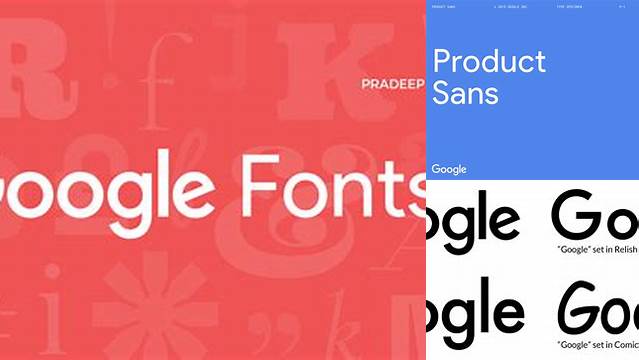
Google Product Sans Font: Free Downloads & Alternatives
Google's Product Sans has become a ubiquitous typeface, known for its clean lines, geometric structure, and modern appeal. This font family is the cornerstone of Google's branding, gracing everything from the Google logo to the interfaces of its various products. Its versatility makes it a popular choice for designers and businesses aiming for a contemporary and approachable look. But getting your hands on Google Product Sans font for free can be a bit tricky, so let's dive into everything you need to know about this iconic font, where to find it, and how to use it.
What is Google Product Sans Font?
Product Sans is a geometric sans-serif typeface commissioned by Google and designed by an in-house team. It was introduced in 2015 as part of Google's rebranding efforts, replacing the previous Catull typeface. The font is characterized by its simplicity, readability, and modern aesthetic. Its clean, minimalist design makes it suitable for a wide range of applications, from branding and logos to user interfaces and body text. The geometric construction gives it a technical and trustworthy feel, while the rounded terminals add a touch of friendliness. Google Product Sans is more than just a font; it's a key element of Google's visual identity, conveying the company's commitment to innovation and user-centric design. The font's widespread use has cemented its status as a modern classic, and its influence can be seen in countless designs across the web and in print. This font family includes various weights and styles, ensuring it can adapt to diverse design needs while maintaining a cohesive brand appearance. Product Sans has been meticulously crafted to ensure readability across different screen sizes and resolutions, which is crucial for a company that prioritizes user experience. If you want to capture the essence of modern design in your projects, understanding and utilizing Product Sans is a fantastic first step. The careful balance of form and function in Product Sans makes it a top choice for brands looking to communicate clarity and innovation. Its clean lines and geometric forms reflect a forward-thinking approach, aligning perfectly with the ethos of modern technology and design.
Why is Google Product Sans So Popular?
There are many reasons why Google Product Sans has become so popular in the design world. First and foremost, its clean and modern design makes it highly versatile. It works equally well for headlines, body text, and logos, making it a go-to choice for branding projects. The geometric structure provides a sense of stability and trustworthiness, while the rounded terminals add a touch of friendliness and approachability. This combination is particularly appealing for tech companies and startups aiming to project an image of innovation and user-friendliness. The readability of Product Sans is another major factor in its popularity. Designed with screen readability in mind, the font renders clearly across different devices and resolutions. This is crucial in today's digital landscape, where users interact with content on various screens, from smartphones to large displays. Google's own widespread use of Product Sans has also contributed to its recognition and appeal. By featuring the font in its logo and across its product interfaces, Google has effectively showcased its versatility and visual impact. This has created a sense of familiarity and trust, making Product Sans a desirable choice for other brands looking to align themselves with Google's image of innovation and quality. Furthermore, the font's geometric nature aligns with current design trends, which favor clean lines, simplicity, and minimalist aesthetics. This makes Product Sans a timely and relevant choice for designers seeking to create contemporary and visually appealing designs. The subtle details in the font, such as the carefully crafted curves and proportions, add a level of sophistication that distinguishes it from other sans-serif typefaces. This attention to detail is a hallmark of high-quality typography and contributes to the font's overall appeal. Google Product Sans has effectively become a symbol of modern design, and its popularity is a testament to its versatility, readability, and aesthetic appeal.
Legal Alternatives and Look-Alike Fonts
While you can't directly download Google Product Sans for free for commercial use, there are several legal alternatives and look-alike fonts that capture a similar aesthetic. These alternatives offer a way to achieve the clean, modern look of Product Sans without infringing on copyright. One excellent option is Roboto, a font family developed by Google and available for free on Google Fonts. Roboto shares many characteristics with Product Sans, including its geometric structure and clean lines. However, Roboto has its own distinct personality and is widely used in Android and other Google products. It's a versatile font that works well for both headlines and body text, making it a great alternative for a wide range of projects. Another popular alternative is Nunito, also available on Google Fonts. Nunito is a rounded sans-serif typeface that offers a friendly and approachable feel. While it's not a direct match for Product Sans, its rounded terminals evoke a similar warmth and modernity. Nunito is particularly well-suited for designs that require a softer touch. Raleway is another strong contender, offering a more elegant and refined alternative to Product Sans. This font features a geometric design with a slightly more condensed form, making it a great choice for headlines and display text. Raleway is available on Google Fonts and is free for both personal and commercial use. For those seeking a closer match, there are several commercially available fonts that closely resemble Product Sans. These fonts are often designed to capture the essence of Product Sans while offering additional features and variations. While they require a purchase, they provide a legally sound way to achieve the desired look. When choosing a font, consider the specific needs of your project. Think about the overall tone and message you want to convey, as well as the intended use of the font. Experimenting with different alternatives can help you find the perfect fit for your design. By exploring these alternatives, you can achieve a similar visual impact to Google Product Sans while respecting copyright regulations.
Conclusion: Embrace the Style of Google Product Sans
While Google Product Sans font itself may not be freely available for commercial use, the wealth of alternatives and look-alike fonts provides ample opportunities to achieve a similar modern and clean aesthetic in your designs. Understanding the nuances of typography and exploring the various resources available can empower you to make informed choices and create visually compelling projects. By considering factors such as readability, contrast, font pairing, and consistency, you can effectively use your chosen font to convey your message and create a lasting impression. Whether you opt for Roboto, Nunito, Raleway, or another alternative, the key is to choose a font that aligns with your brand identity and design goals. The geometric sans-serif style popularized by Product Sans remains a powerful and versatile choice for modern design, and by embracing its principles, you can create designs that are both visually appealing and effective. So, go ahead and experiment with different fonts, explore the possibilities, and let your creativity shine. Remember, typography is more than just choosing a font; it's about crafting a visual experience that resonates with your audience. Embrace the style of Google Product Sans, and let your designs speak volumes.